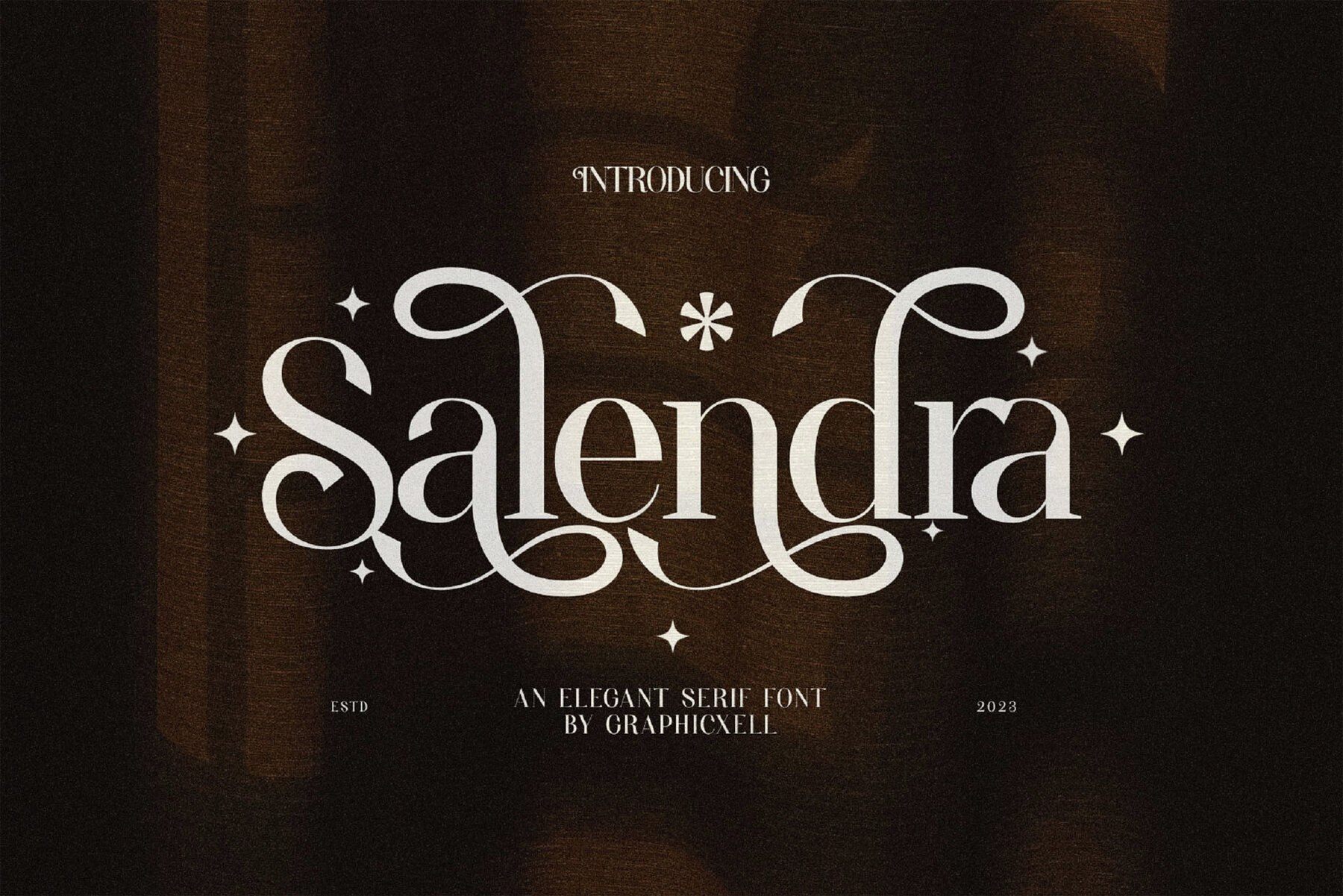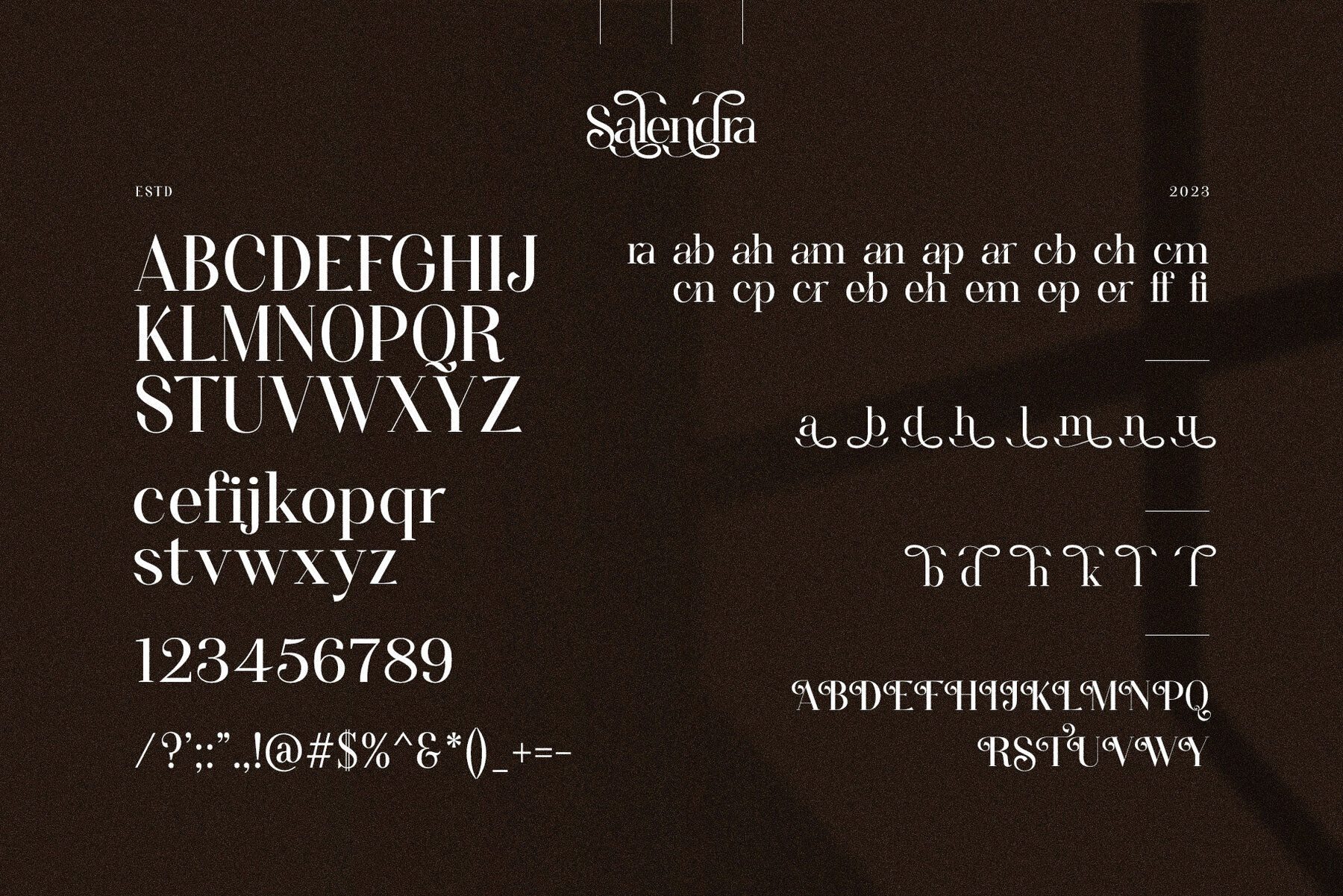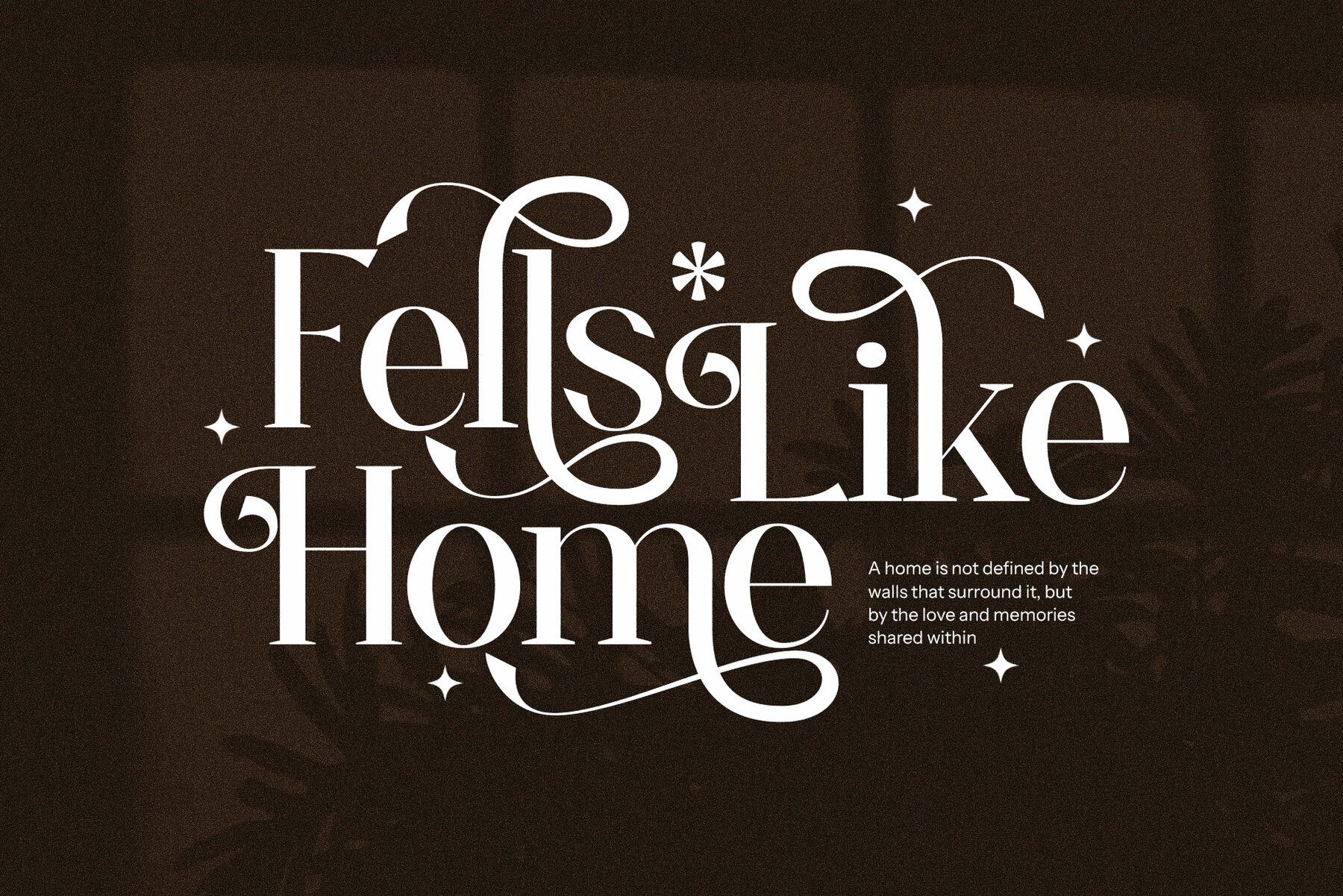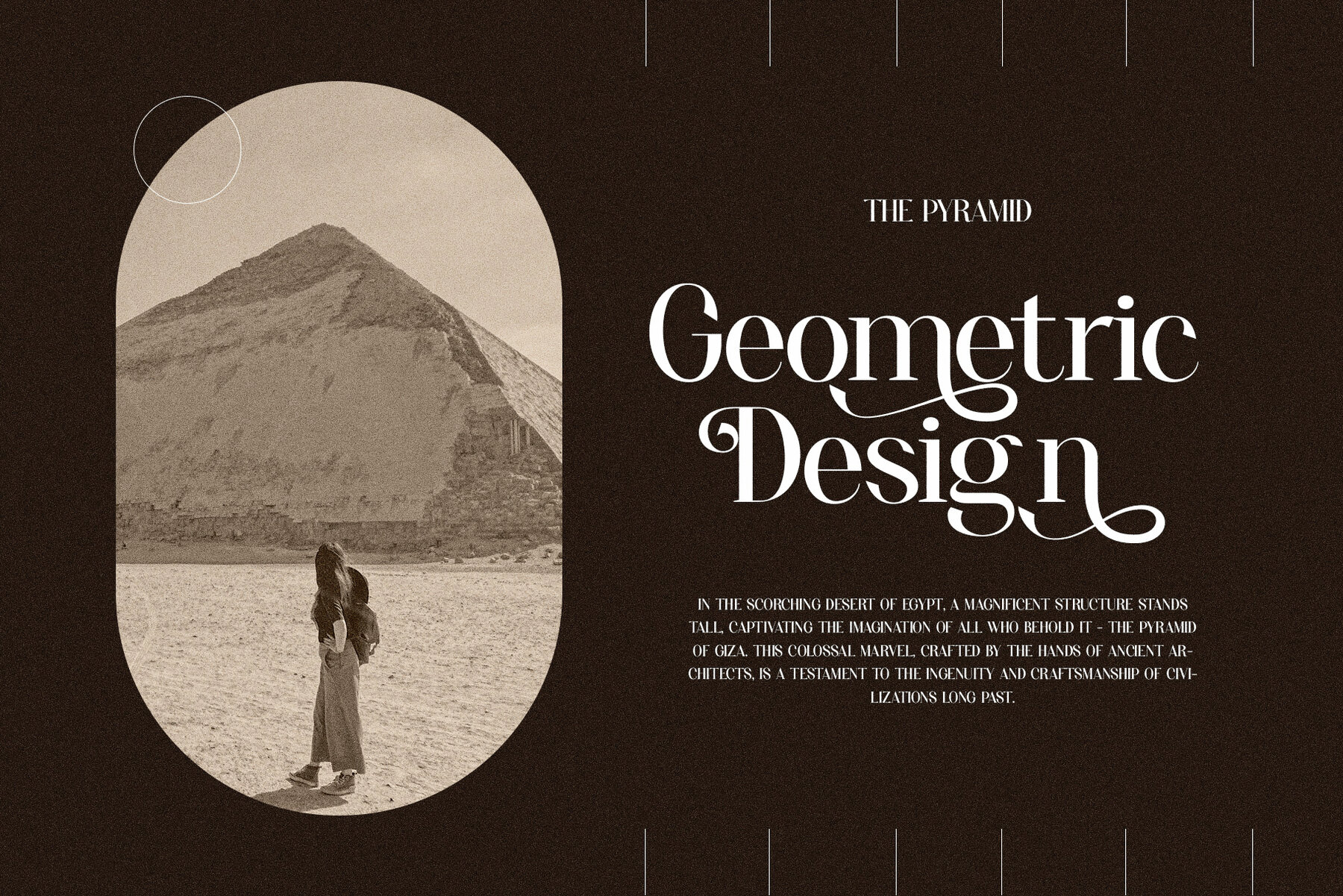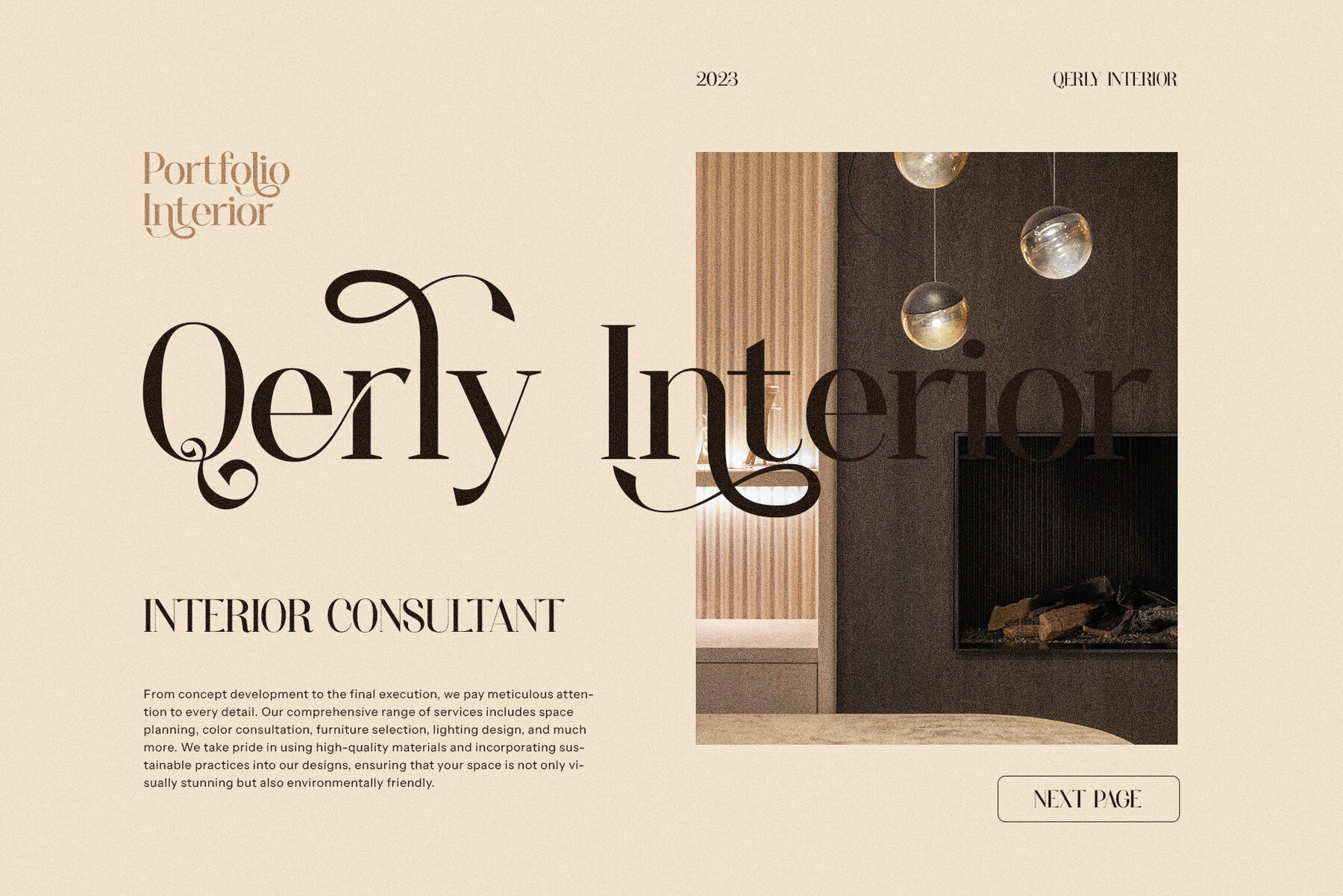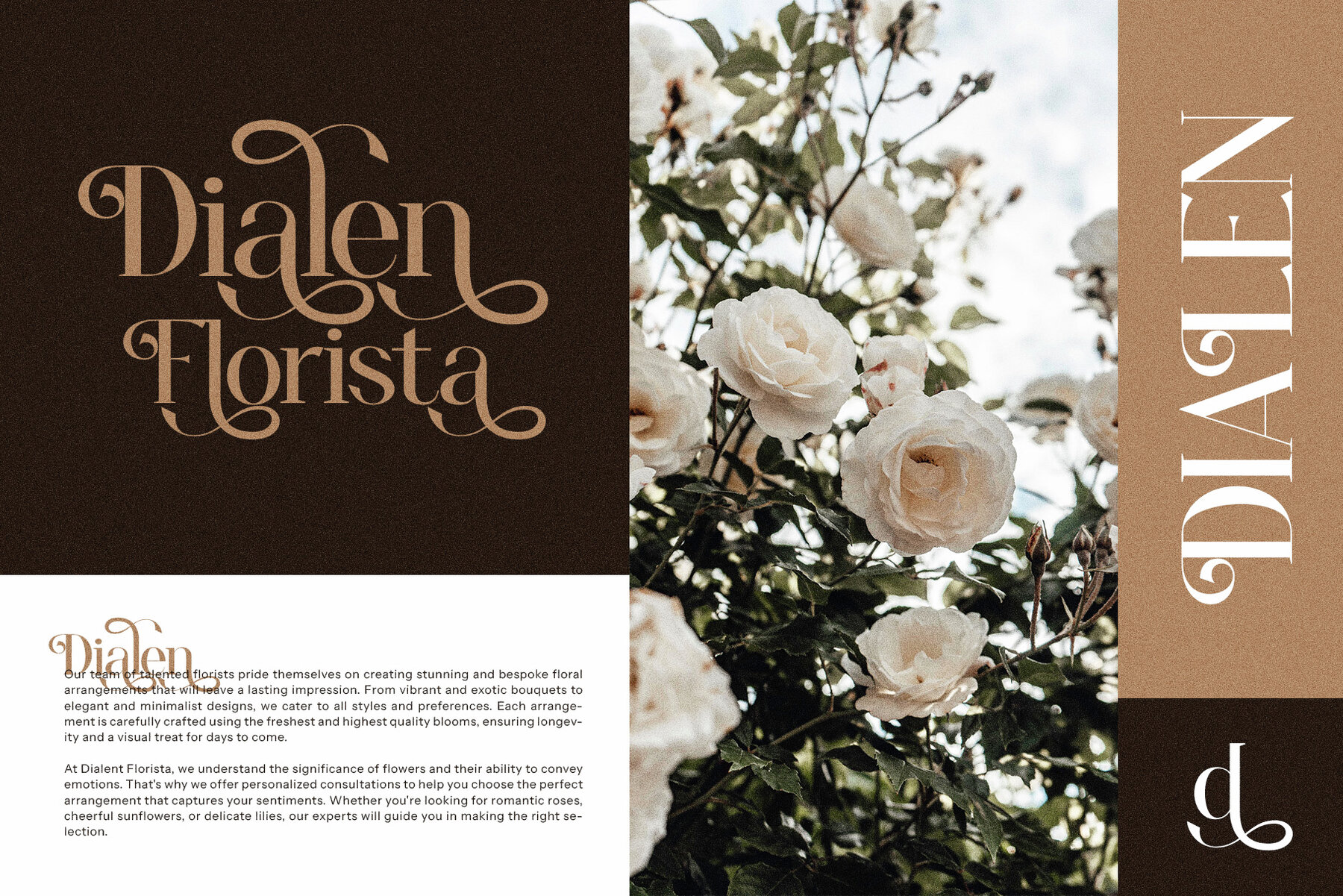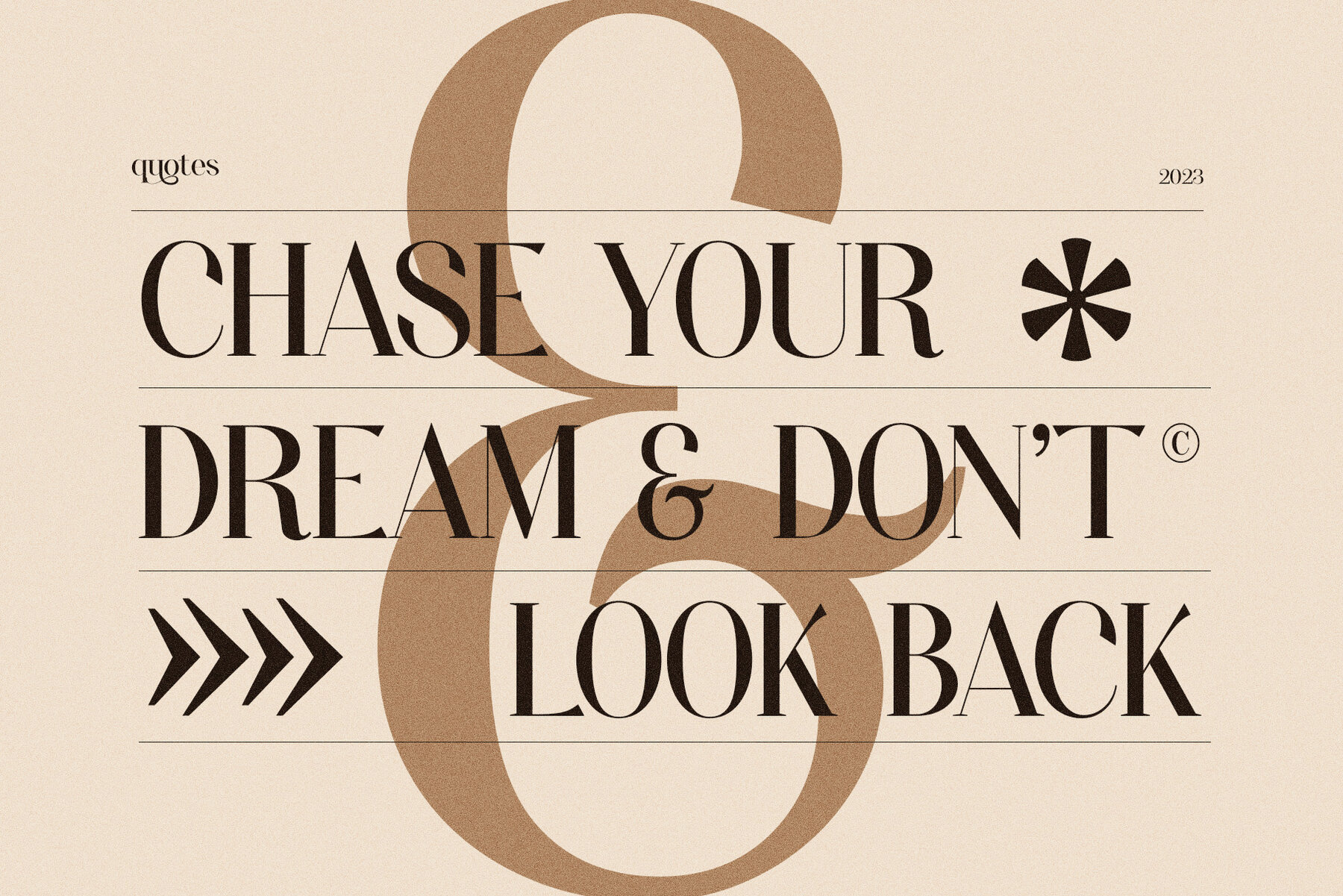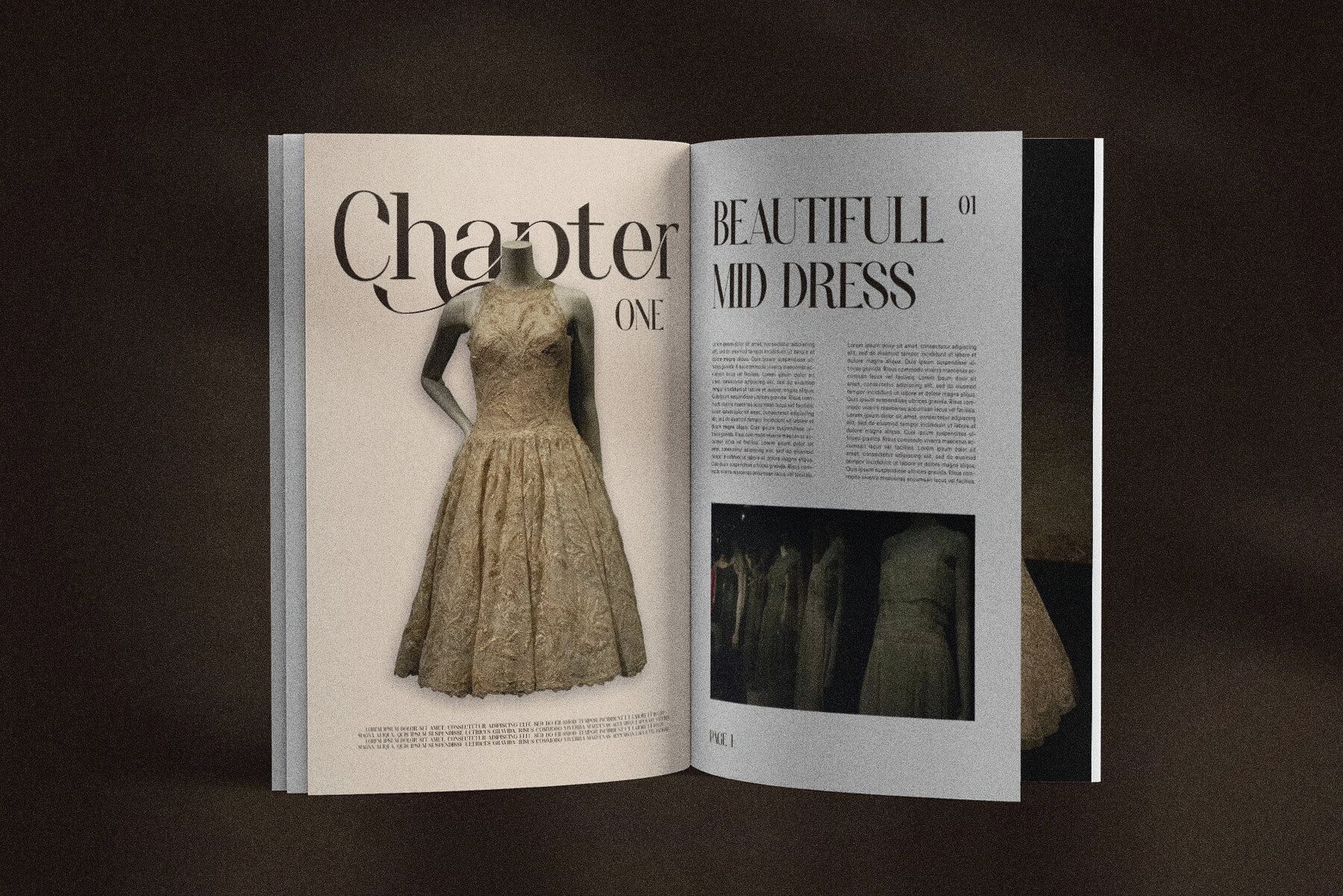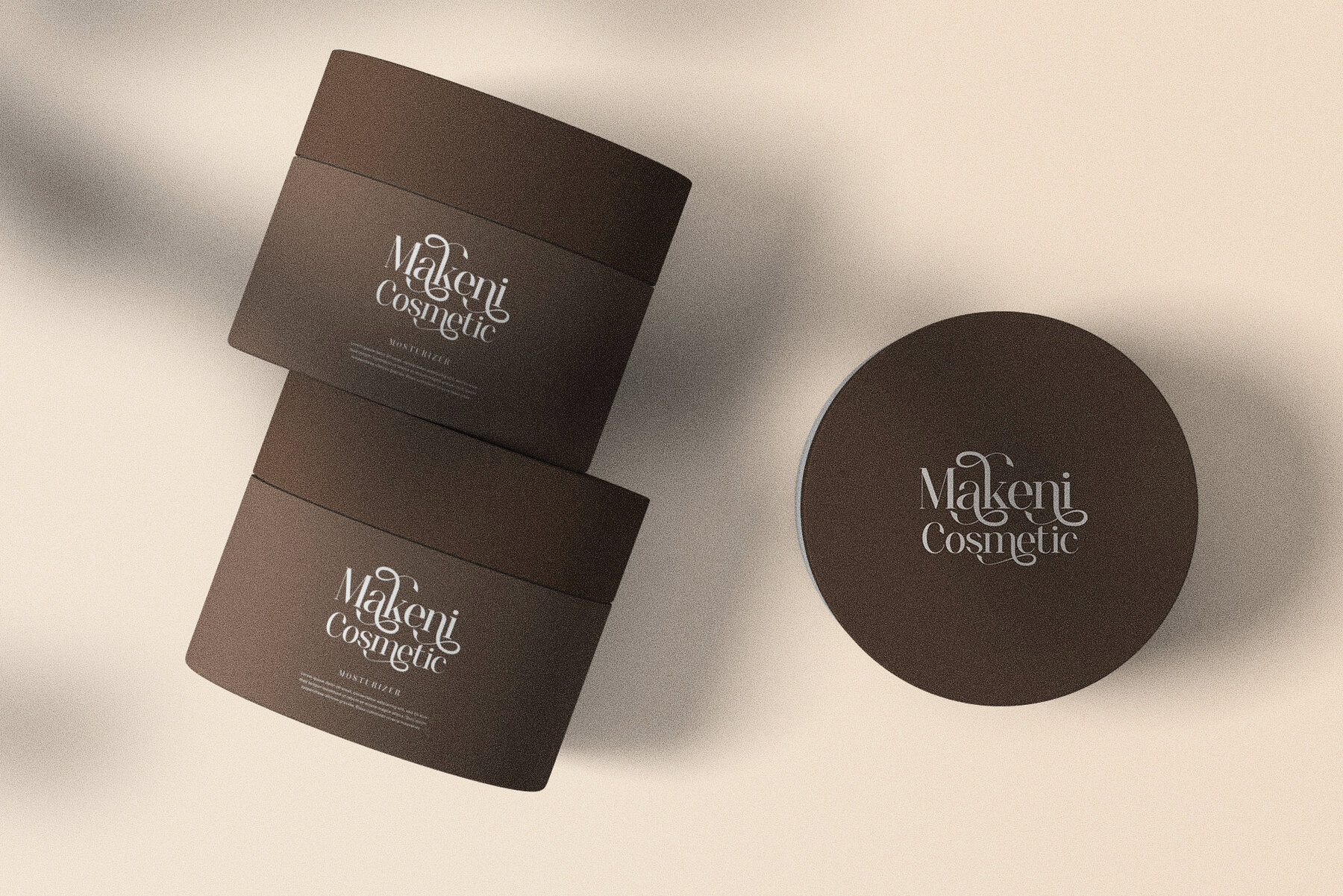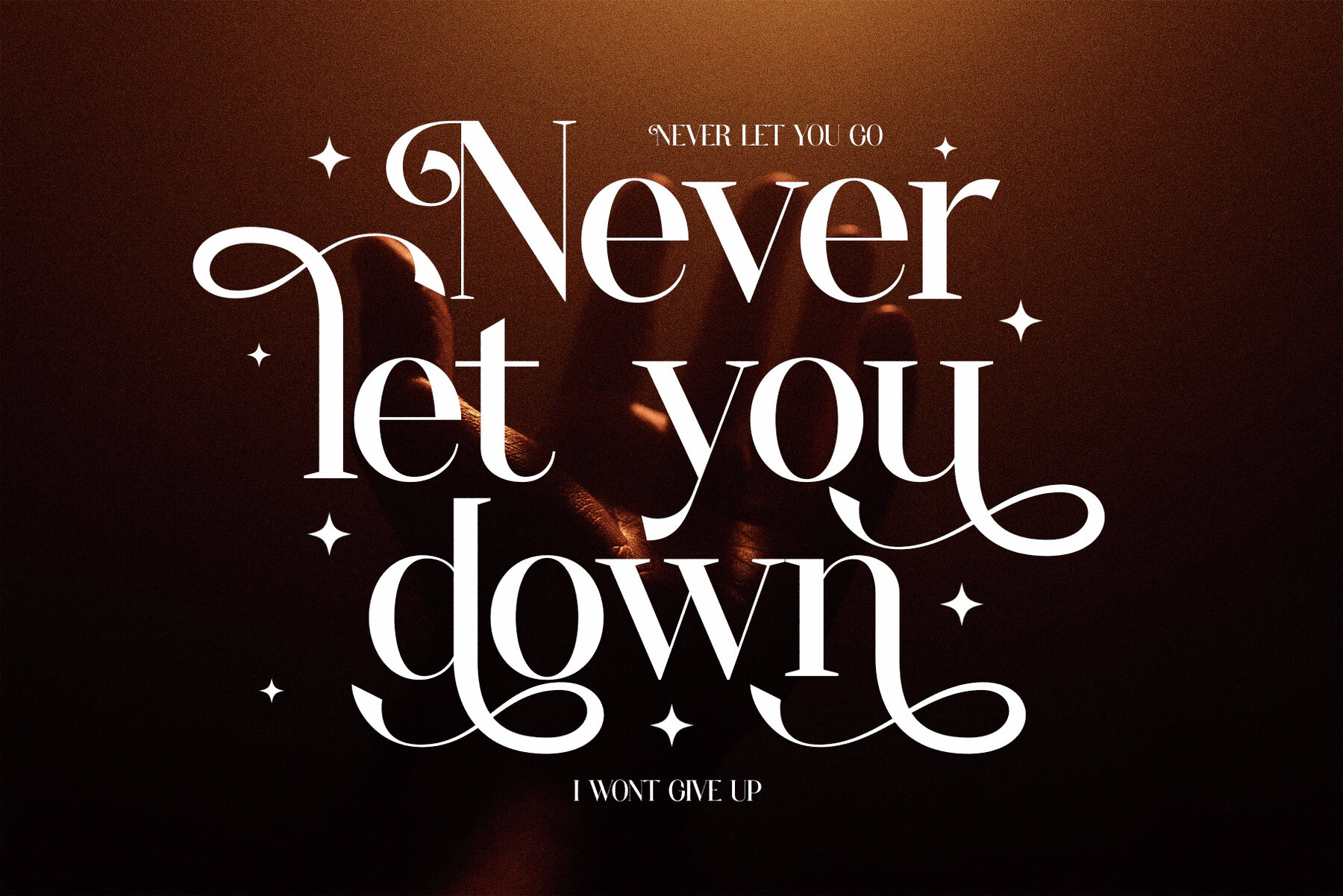
Salendra Font
Salendra Regular
Salendra by Graphicxell is a unique and elegant font designed specifically for branding and logo creation. This serif typeface combines a classy style with a modern touch, making it suitable for a wide range of applications. Whether you're working on a branding project, designing a logo, creating wedding invitations, or crafting social media posts, Salendra offers high readability without compromising style. The Salendra font works seamlessly on both PC and Mac platforms. For the best experience, it's recommended to use this font with Adobe Illustrator or Adobe Photoshop. If you have any questions, feel free to reach out for assistance.Salendra: Elegant Serif Font for Branding and Logos